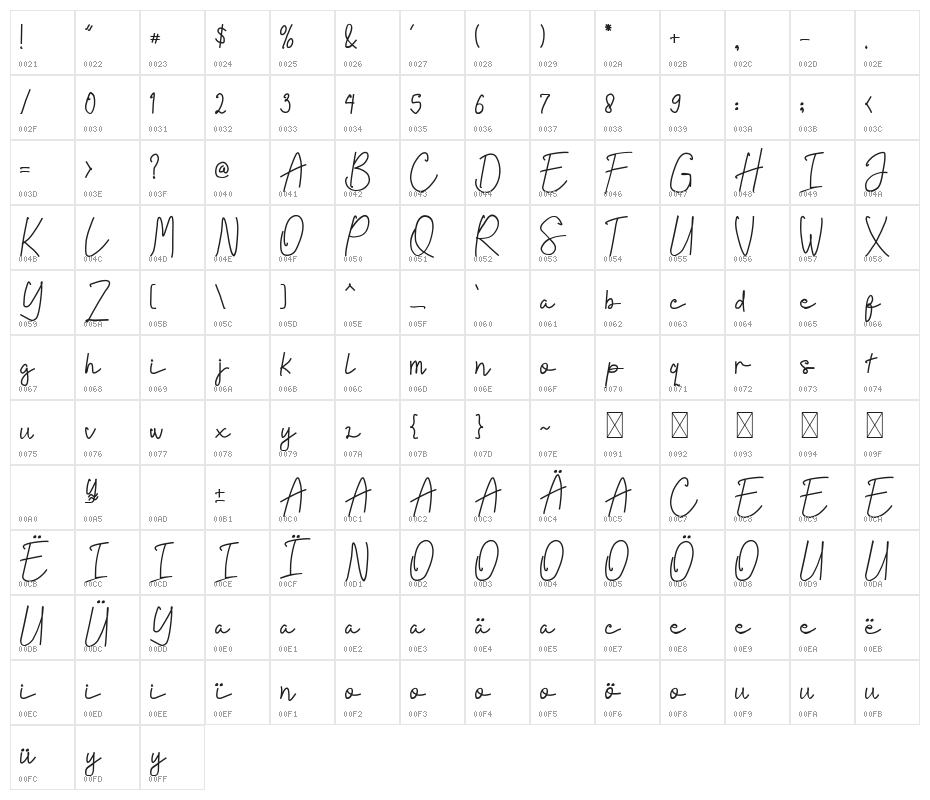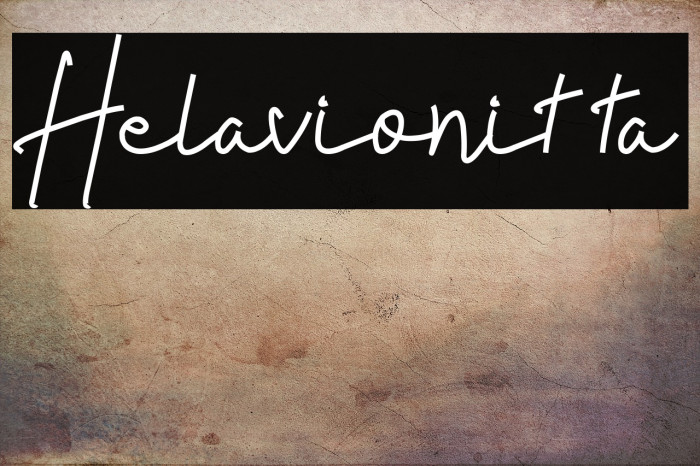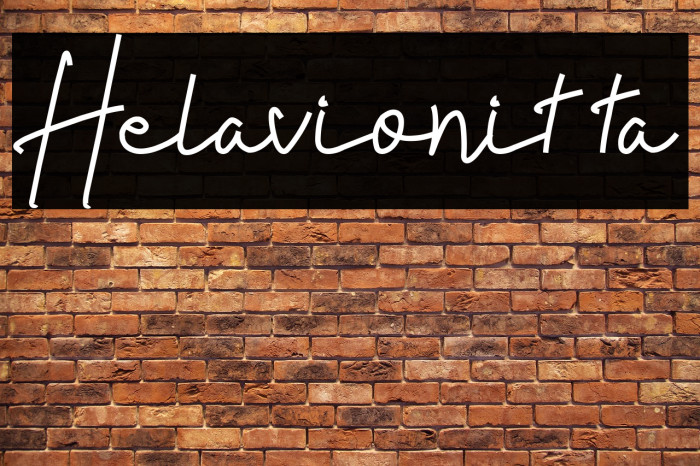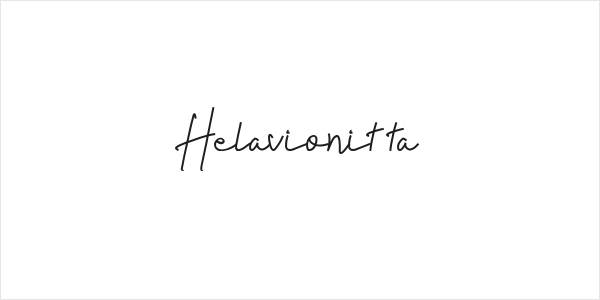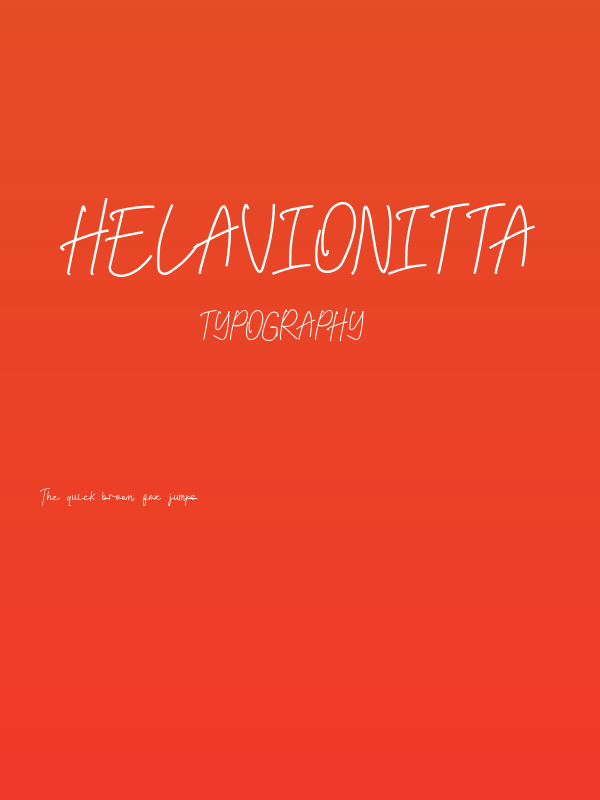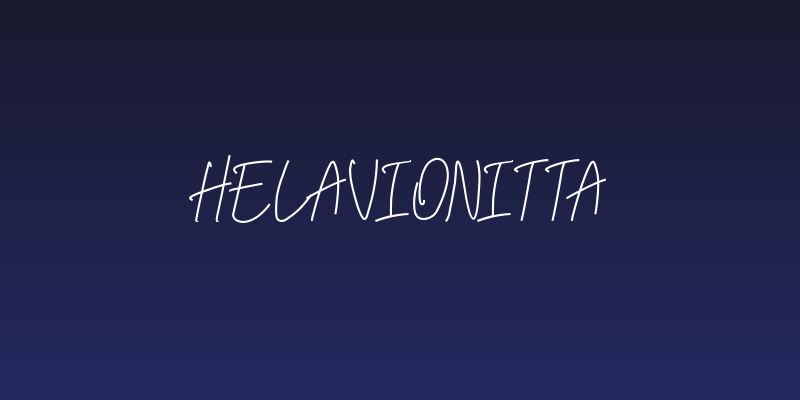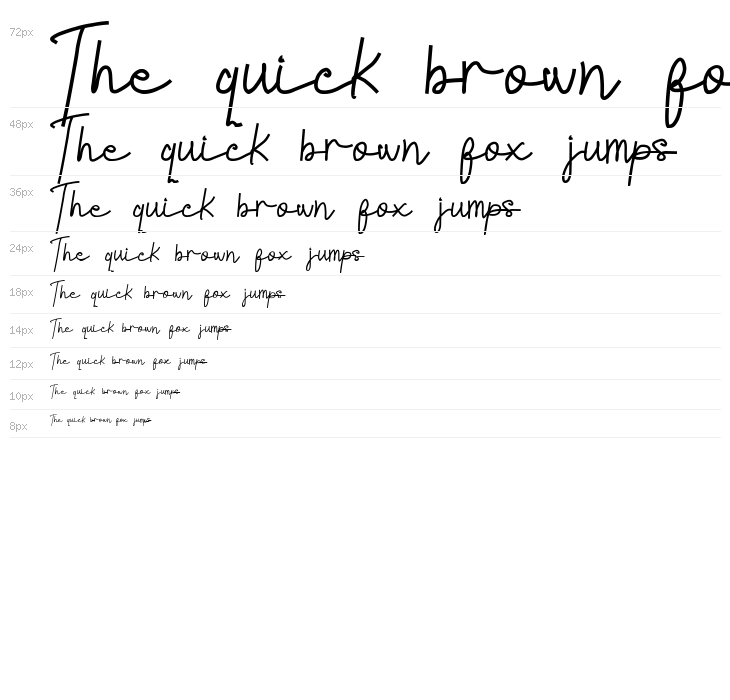
Helavionitta Font
Helavionitta Description
A casual handwritten font with a playful and informal style, featuring smooth and flowing strokes.
| Use Case | Logos, Invitations, Personal notes |
| Proposed Projects | Greeting cards, personal branding, casual invitations. |